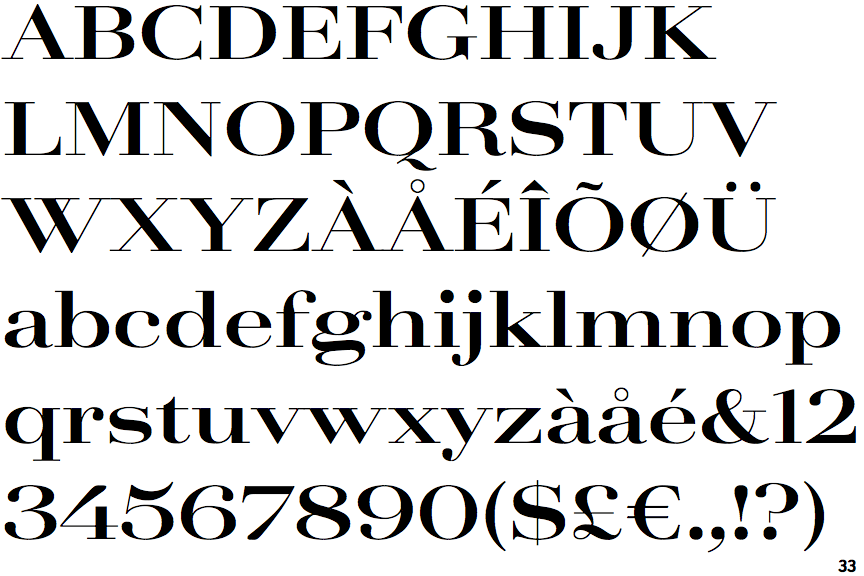
Amazonia Ultra Expanded Bold Contrast
One of the Widest serif fonts for tight vertical spaces.
Designer: Ian Party Year: 2021 Publisher: Newglyph Available as an OpenType Variable Font. |